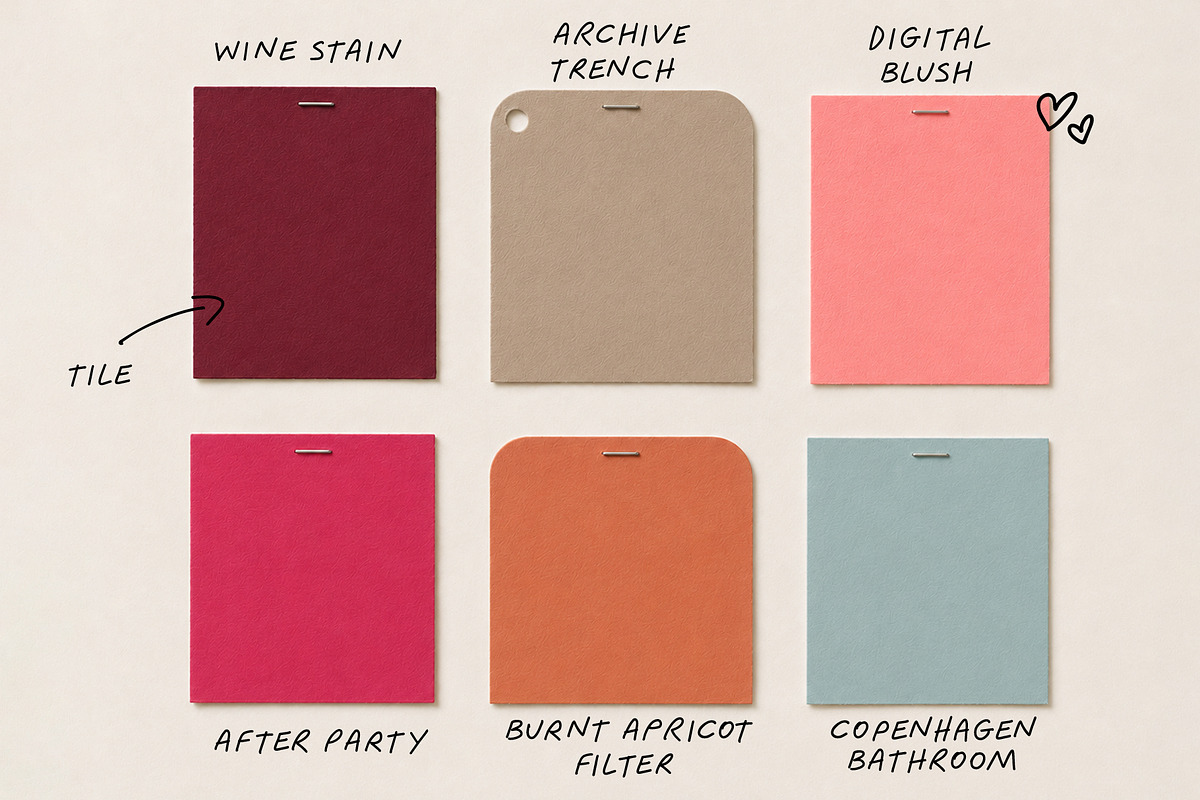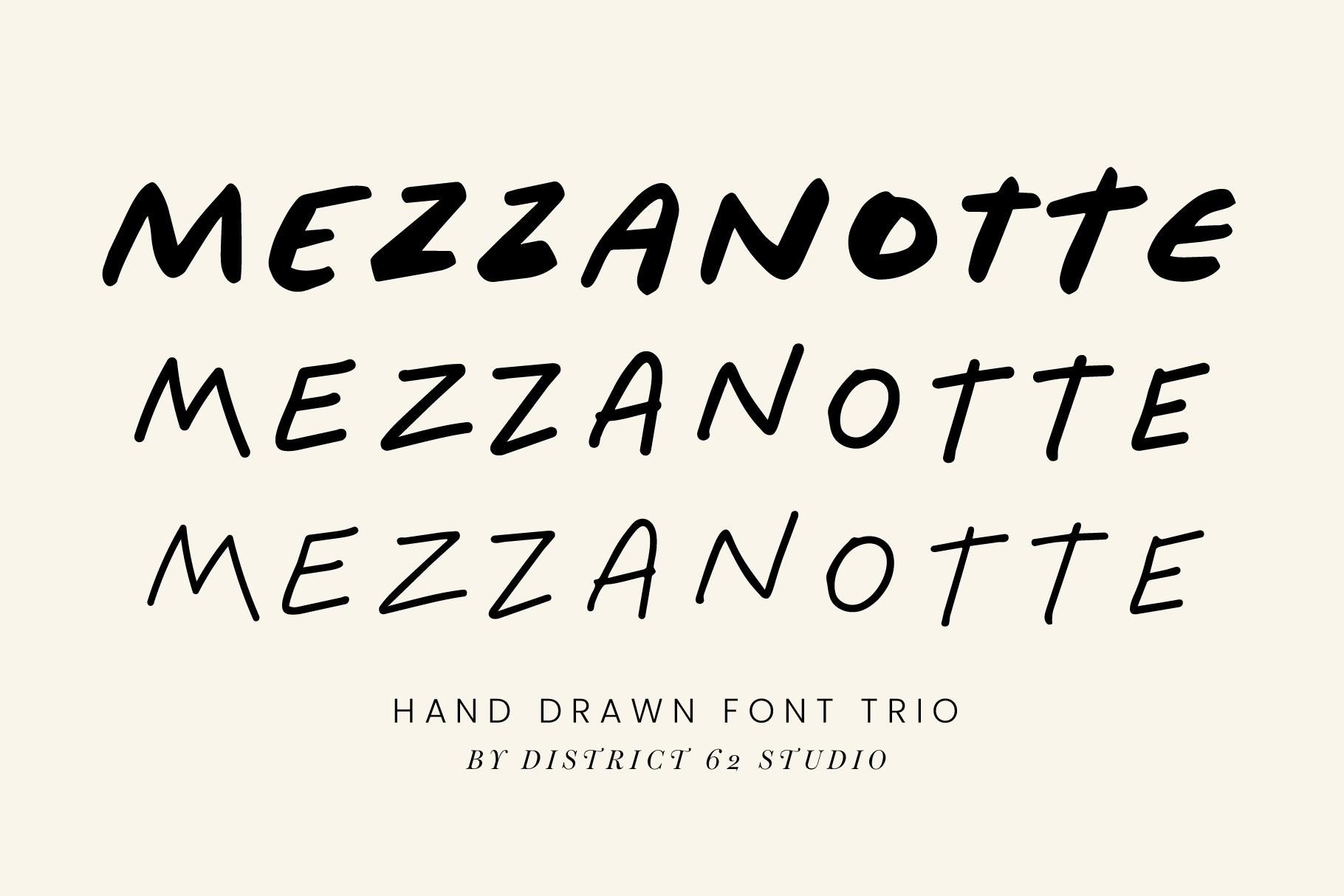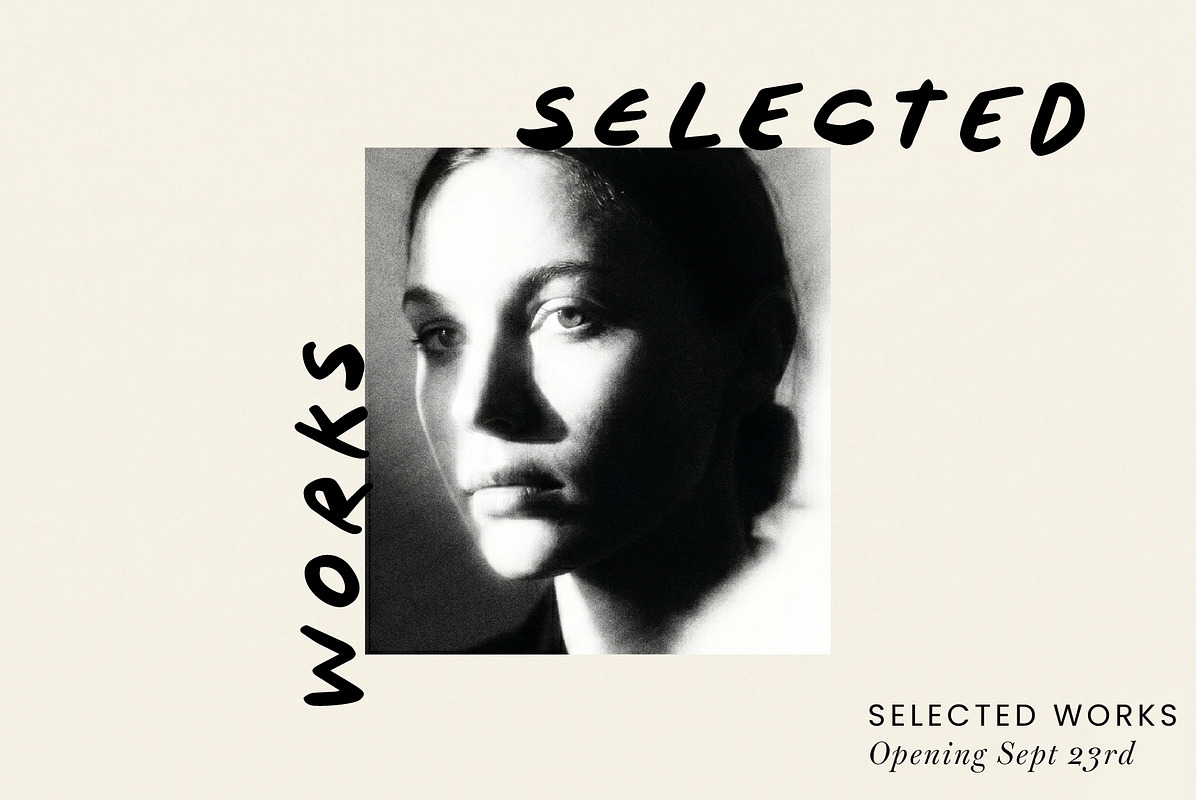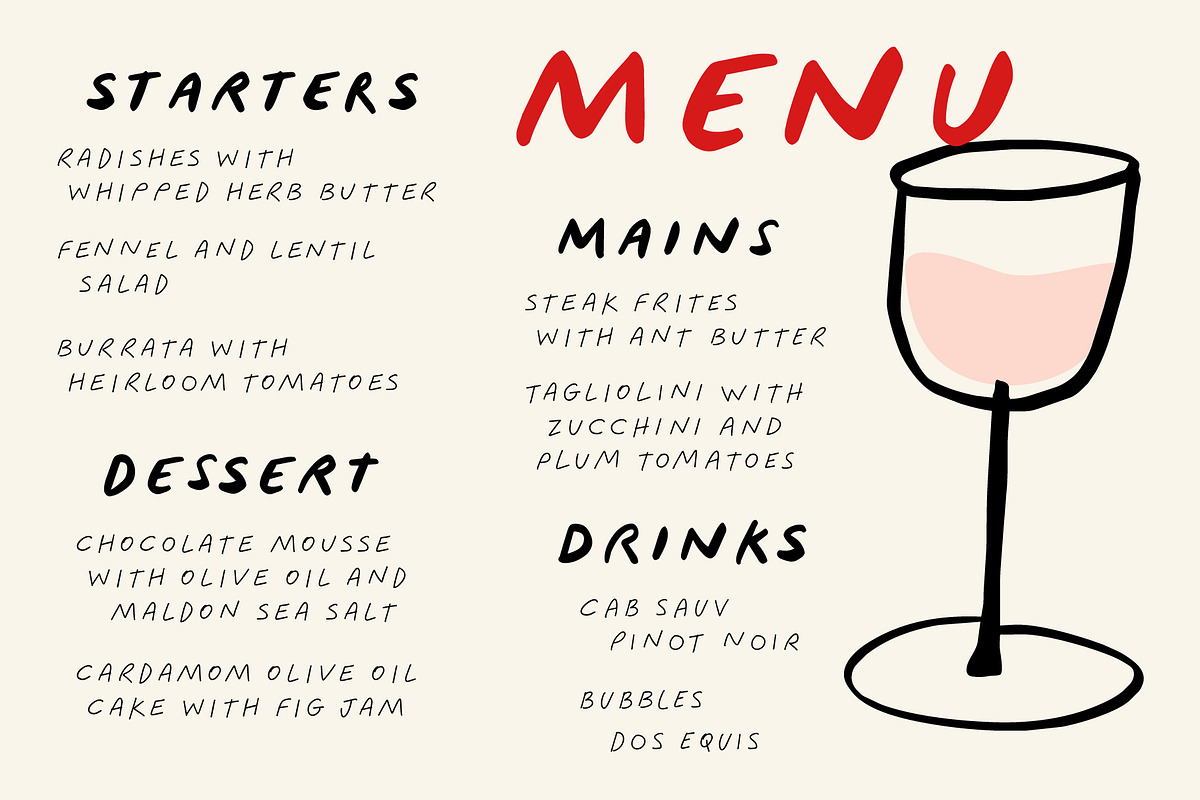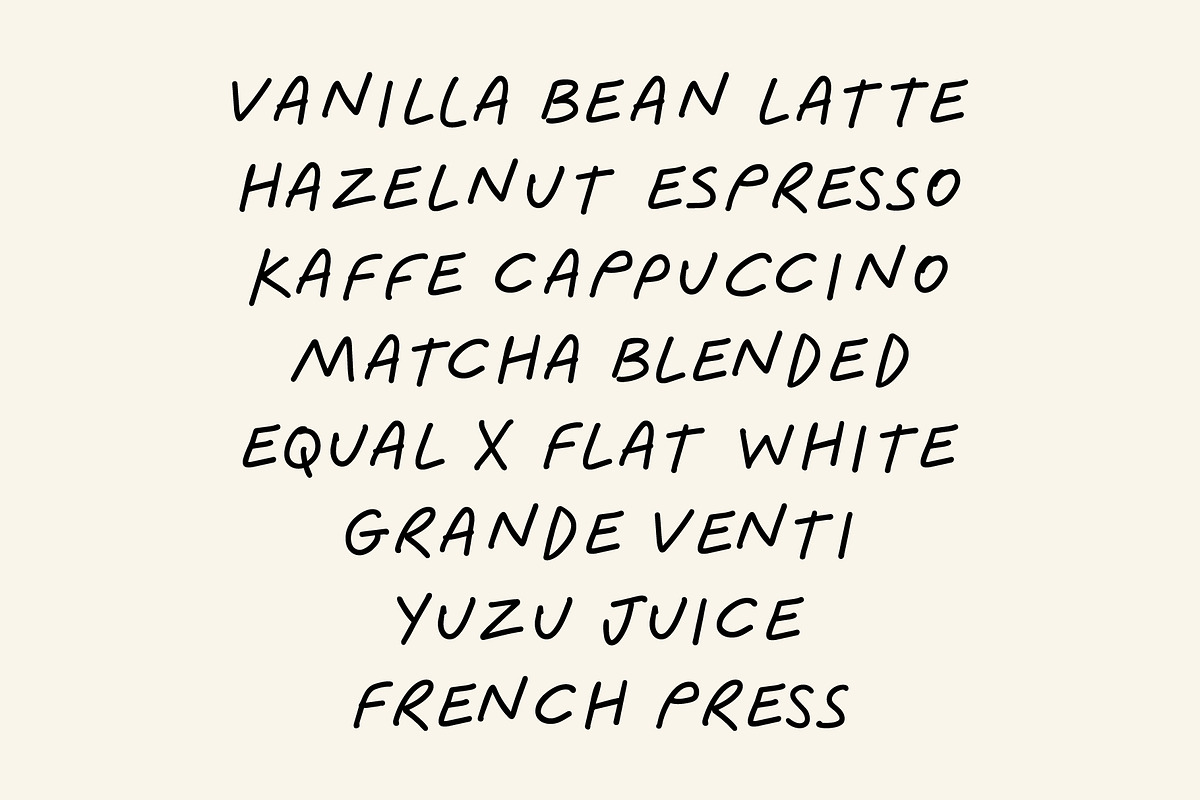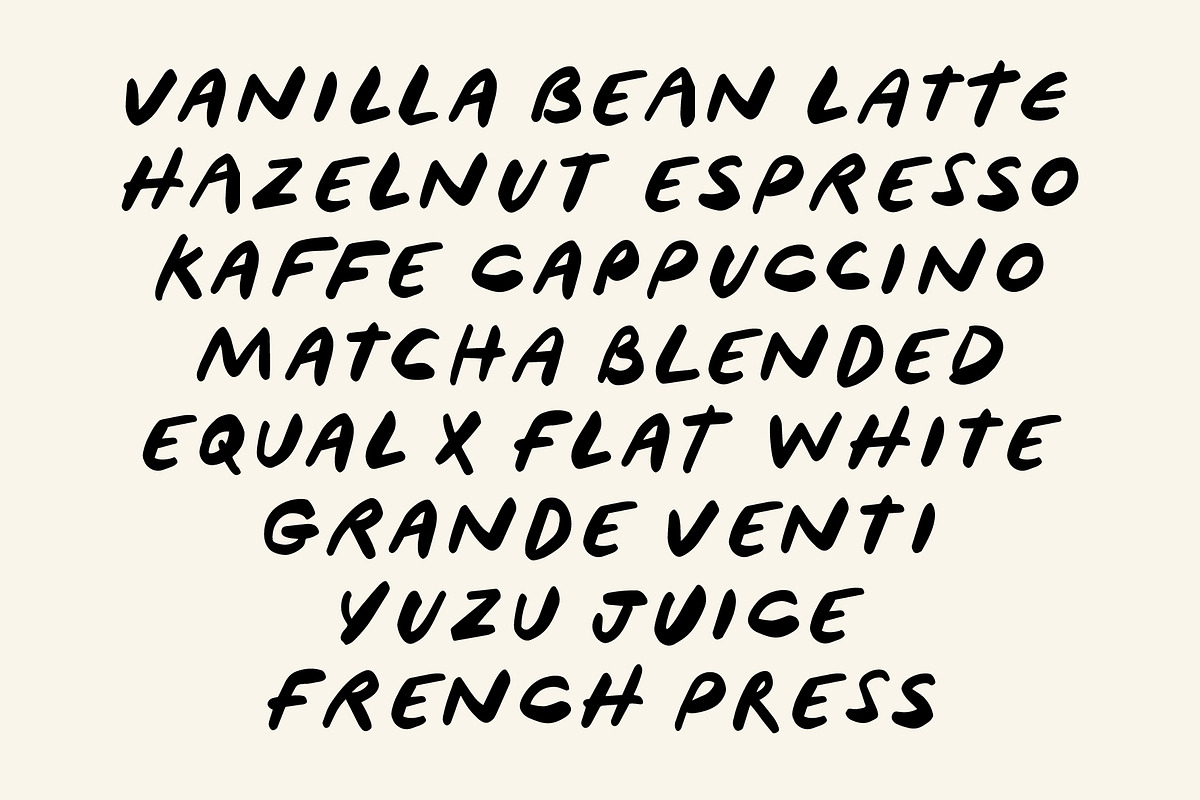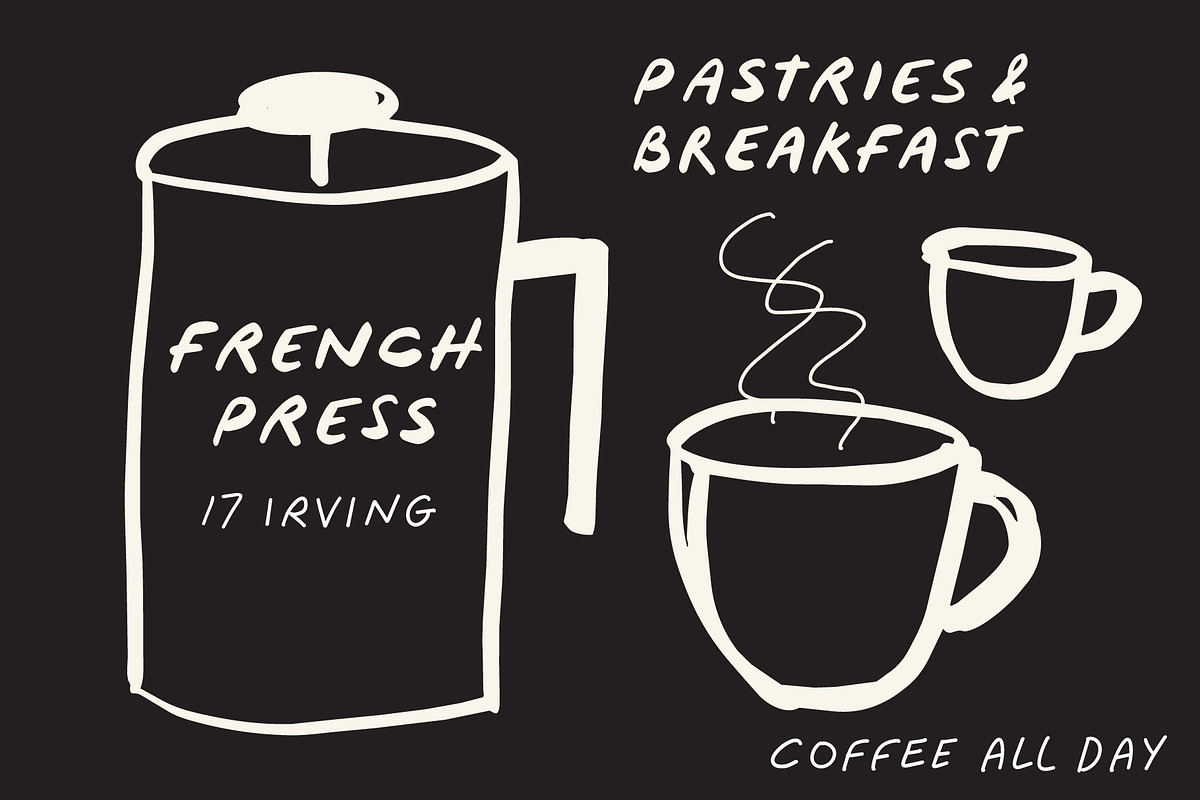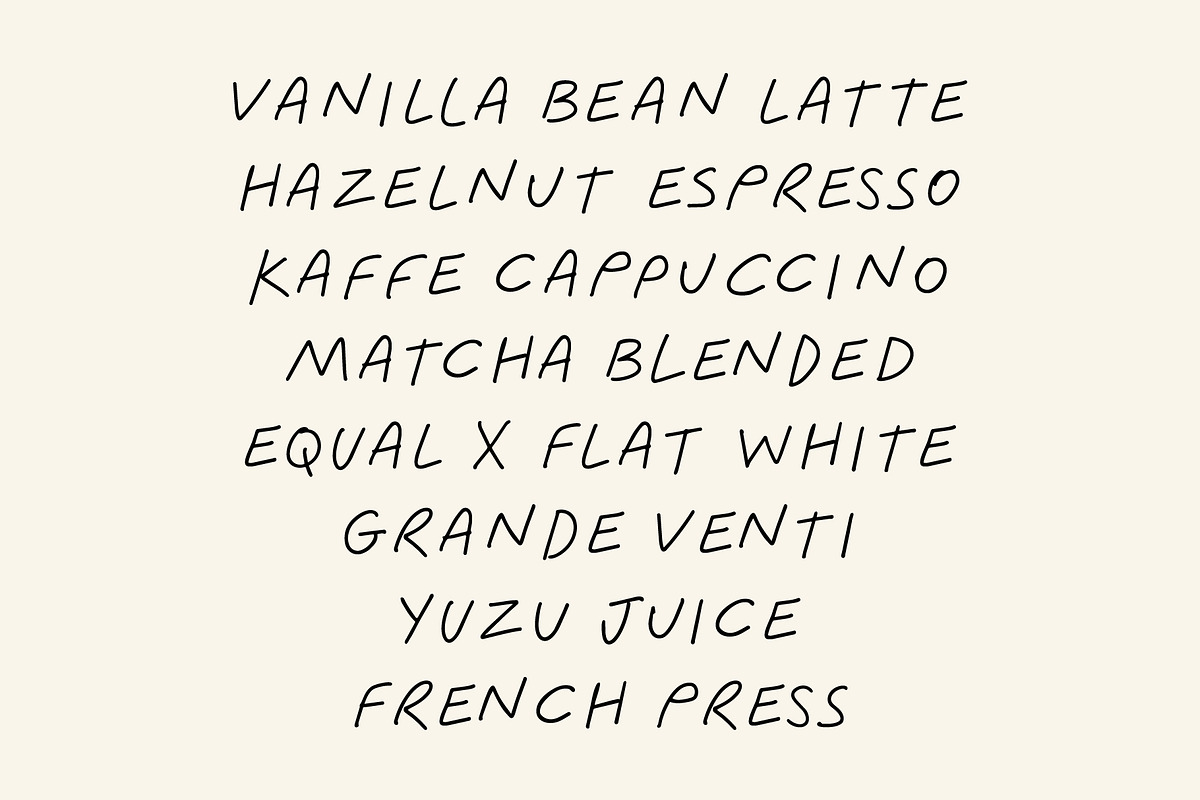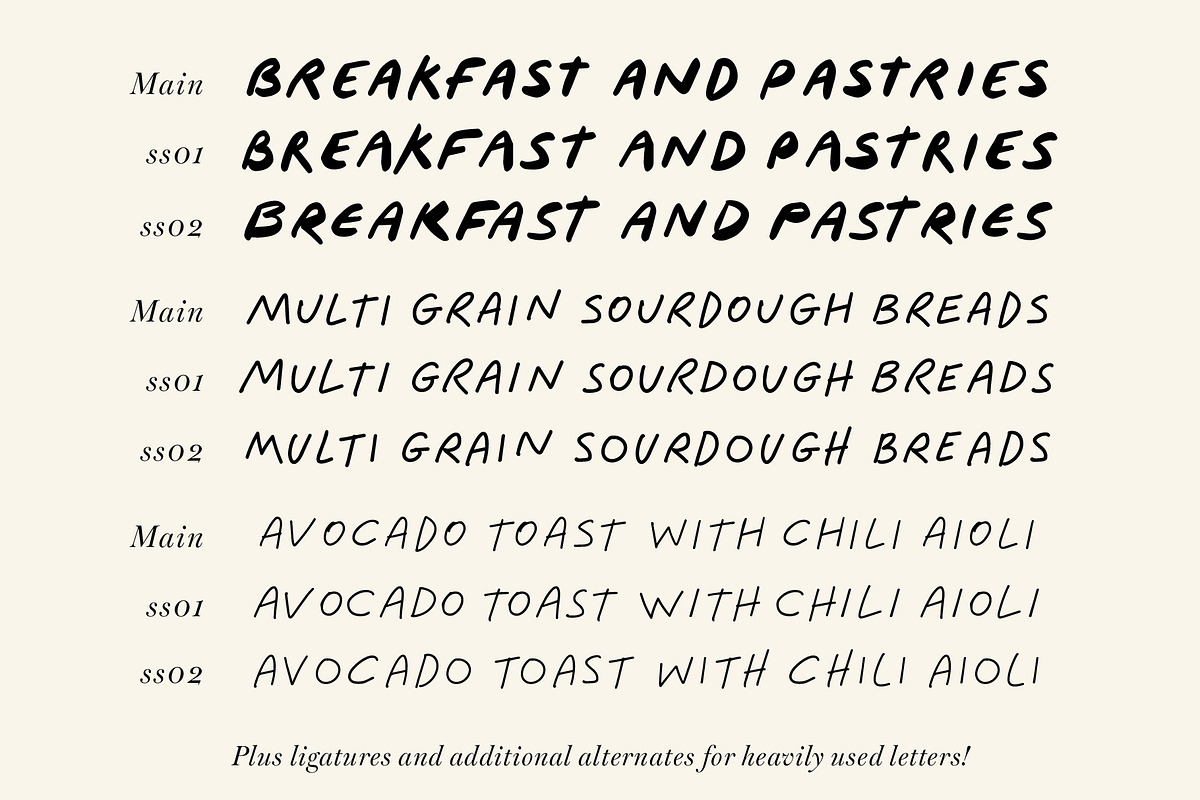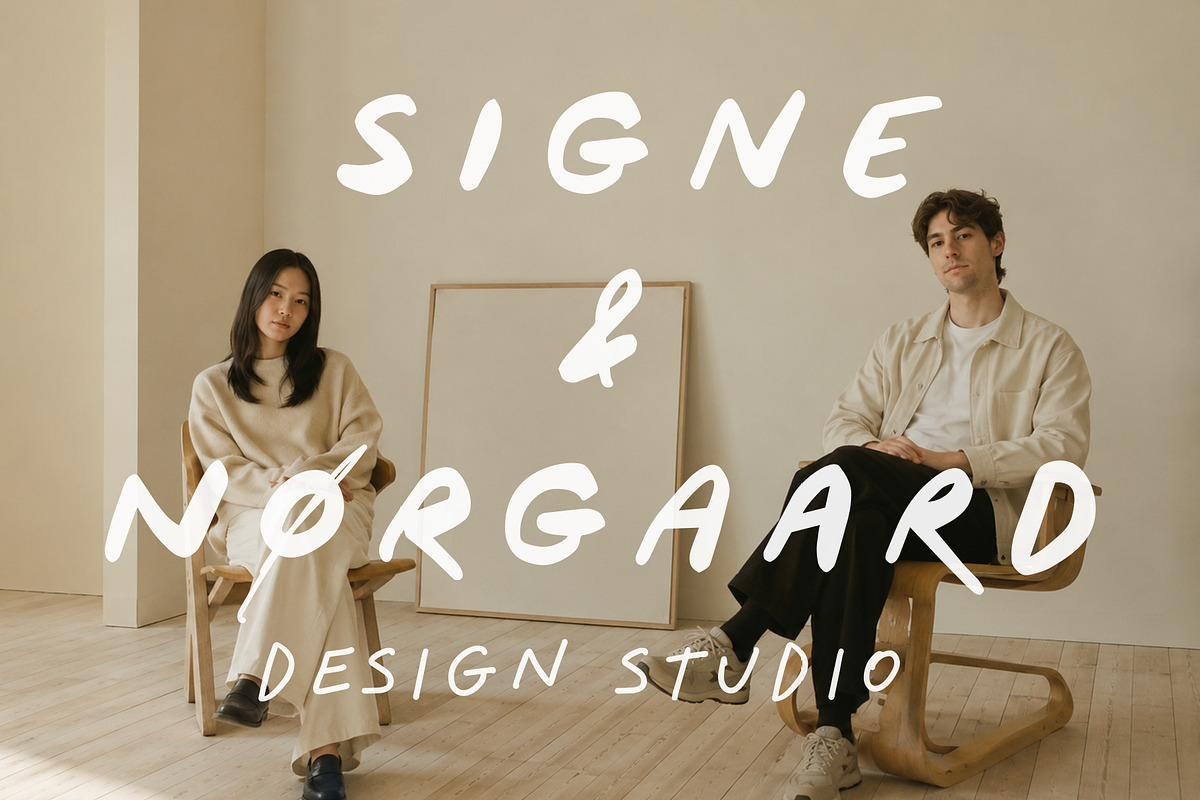
Mezzanotte - Hand Drawn Font Trio
Mezzanotte is a warm, hand-drawn font trio with the unmistakable character of something made by a person. Loose lines, uneven shapes and natural inconsistencies give Mezzanotte an easy,, expressive quality that feels personal rather than polished to perfection. The family includes three complementary hand-drawn styles, from bold and graphic to light and casual, designed to mix together naturally.
Mezzanotte works especially well for branding, packaging, menus, restaurants, cafés, editorial design, fashion, social media, posters, invitations, product packaging and creative studios. It can feel playful, sophisticated, nostalgic or distinctly modern depending on how it’s used.
Inspired by handwritten notes, painted signs, sketchbooks and the imperfect marks that make design feel human, Mezzanotte brings warmth and personality to layouts while still feeling graphic, contemporary and grown-up.
The family includes alternate letterforms and ligatures for frequently repeated characters, helping words feel more naturally hand drawn and less mechanically typeset.
Mezzanotte is made for designers who want typography to feel natural, hand-drawn and human made.